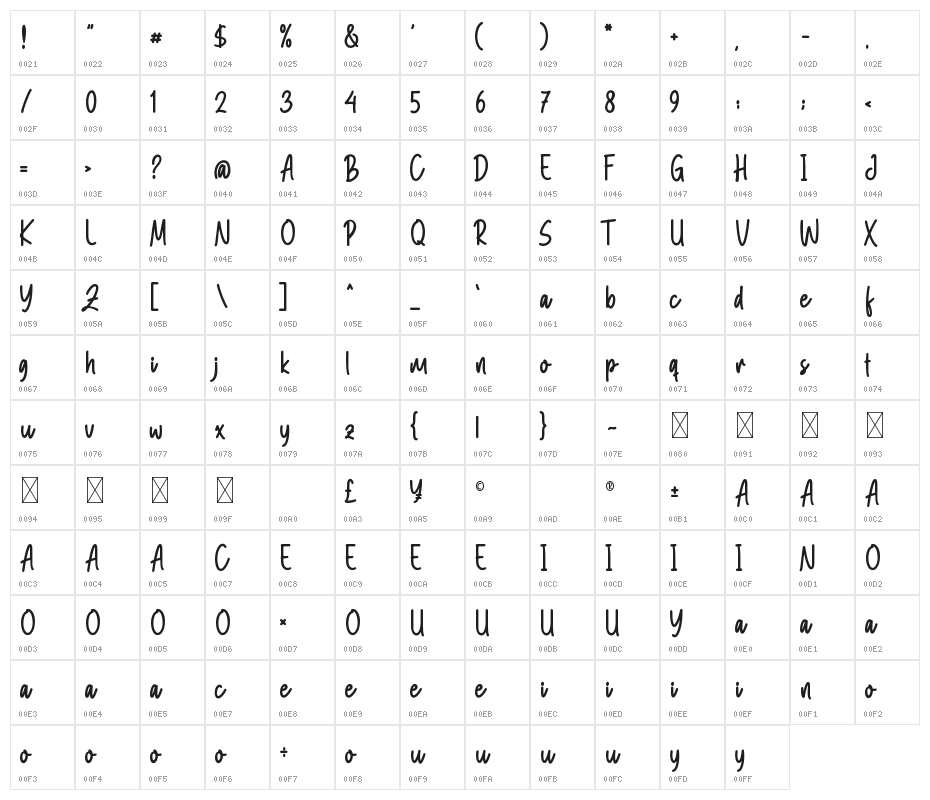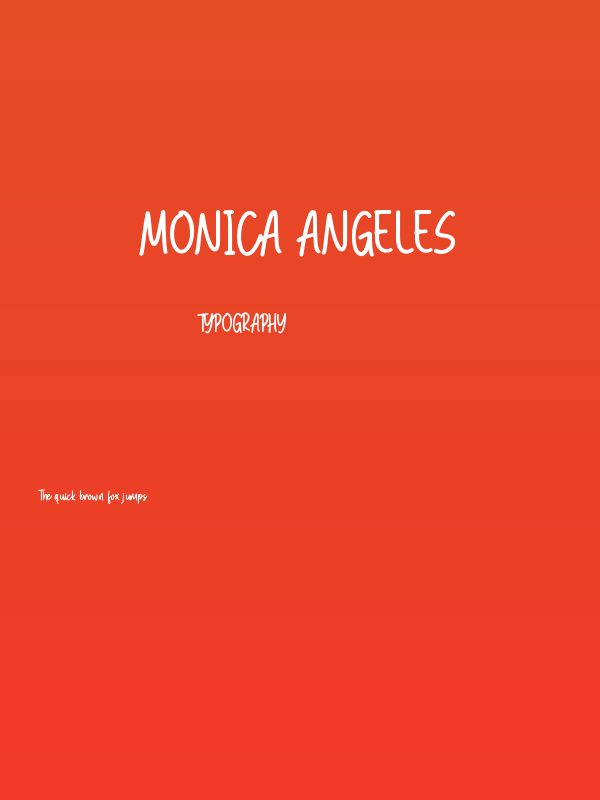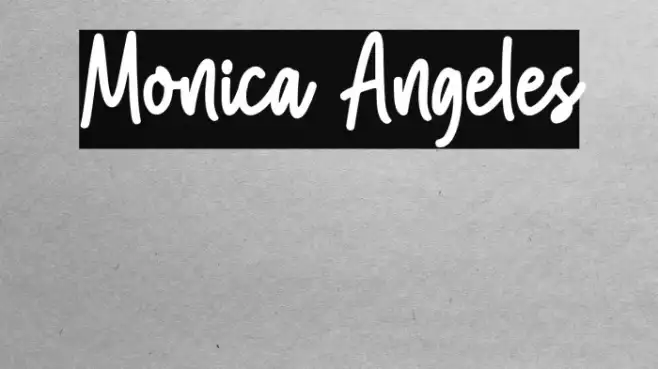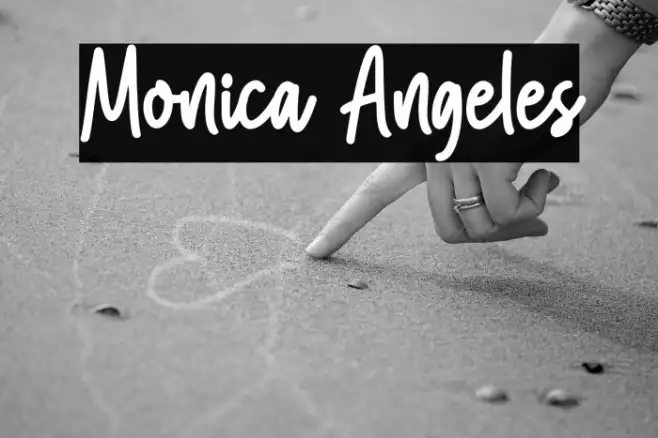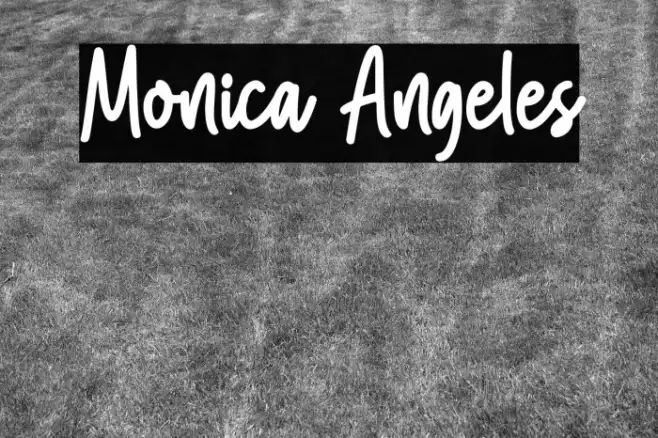
Monica Angeles Font
Monica Angeles Description
A playful and casual handwritten font with smooth curves and a friendly appearance.
| Use Case | Logos, Headlines, Informal text. |
| Proposed Projects | Greeting cards, invitations, personal branding. |